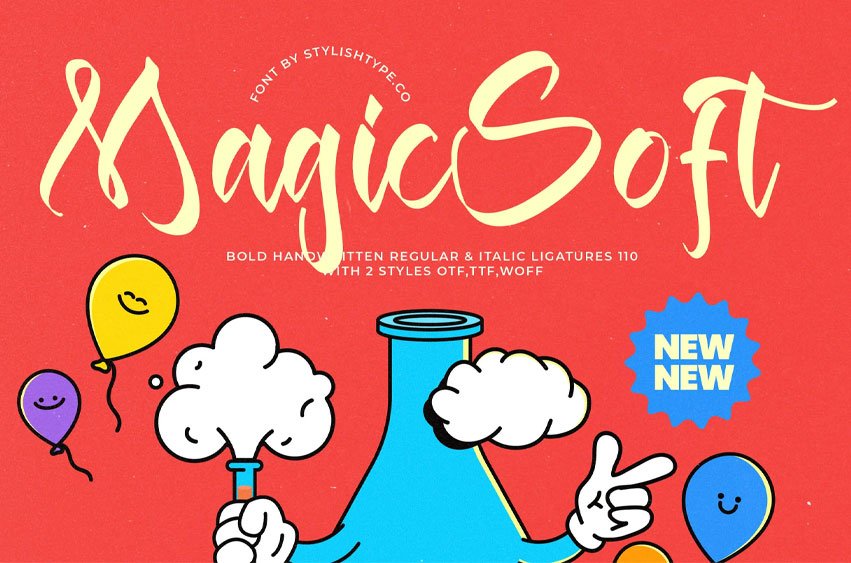
Magic Soft Font Bold Handwritten Font , Magic Soft is a Bold Handwritten Font crafted with smooth curves, playful strokes, and an energetic handwritten feel.
Designed to bring fun, warmth, and personality into your projects, this font is perfect for children’s themes, creative branding, colorful packaging, posters, social media graphics, and modern advertisements.